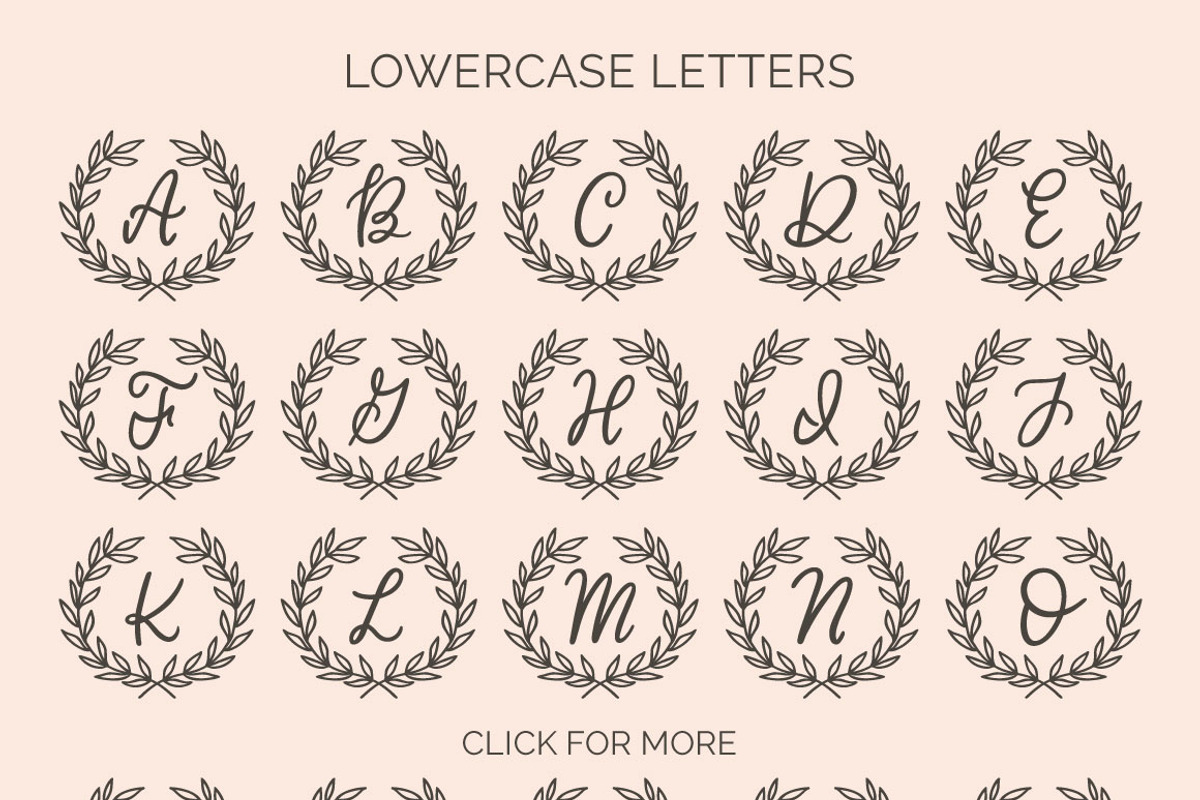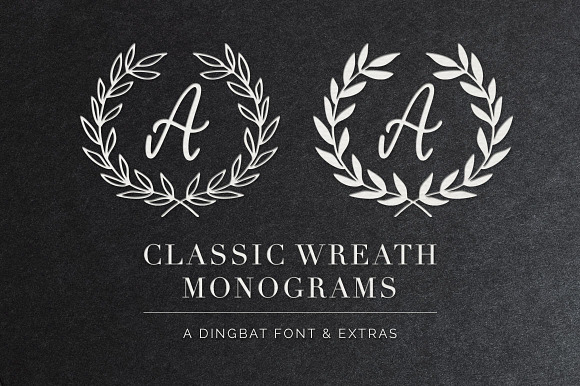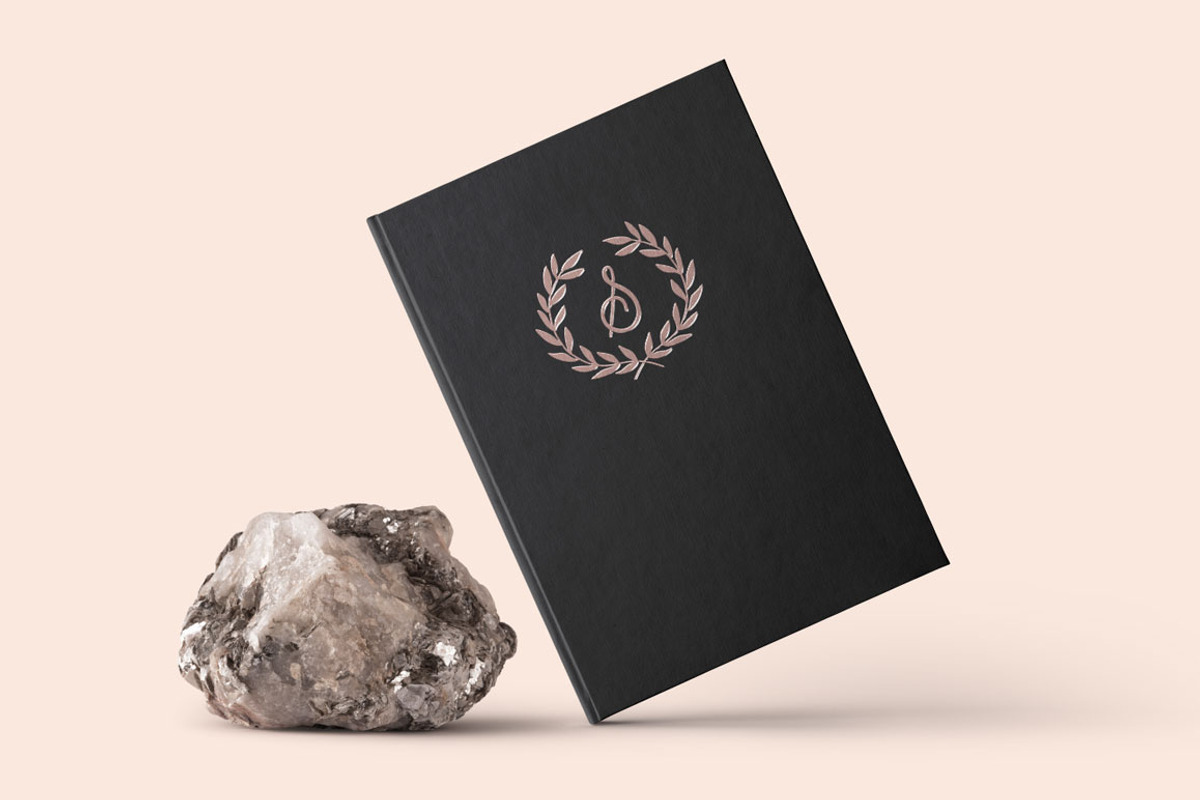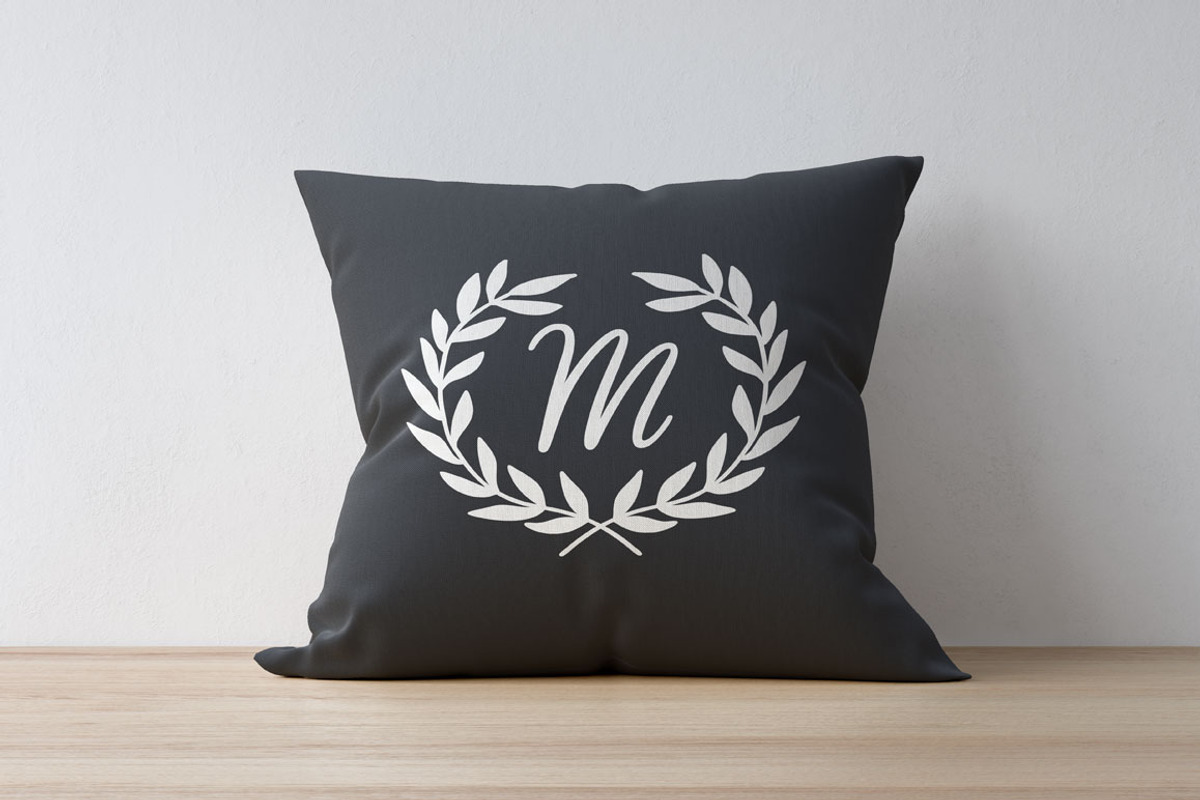
Wreath Monograms Dingbat Font
Create elegant monogram designs on everything from art prints to pillows with the Classic Wreath Monograms dingbat font. The font includes two versions of the monograms designs, one with outline leaves (lowercase letters) and one with filled leaves (uppercase letters) for tons of flexibility, and it’s been tested for use with digital die cutting machines, too!
All monogram letters are hand lettered and are unique to this font.